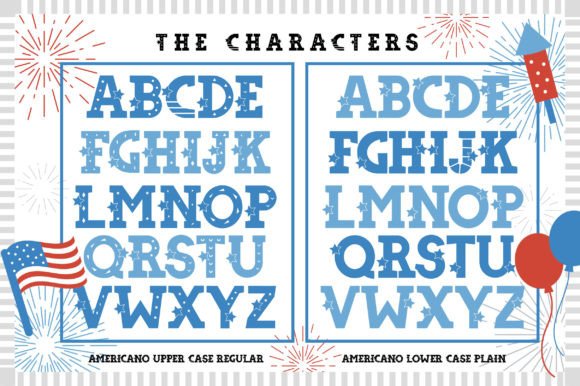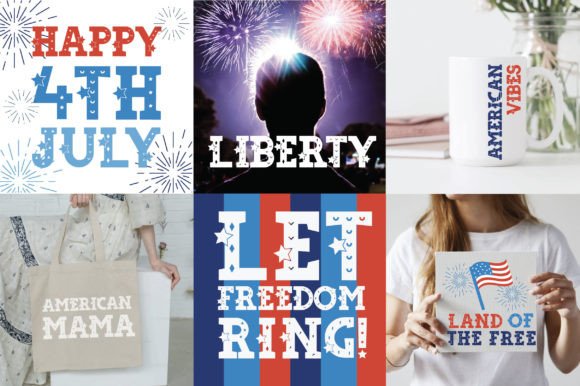
Introducing Americano Font: The Perfect 4th of July Decorative Theme Font
Are you looking for a unique and festive font to make your 4th of July projects stand out? Look no further than Americano Font, a decorative theme font designed specifically for Independence Day celebrations. With its bold and eye-catching design, Americano Font is sure to add a touch of patriotism and excitement to your designs.
What is Americano Font?
Americano Font is a special decorative font created to commemorate the 4th of July. It comes in two stylish variations: one with intricate decorations inside the letters and another with a clean, decoration-free design. This versatility allows you to choose the perfect style to match your project’s tone and theme.
Key Features of Americano Font
- Patriotic Design: The font features a bold and patriotic design, perfect for creating 4th of July-themed projects.
- Two Styles: Choose from two variations: one with decorative elements inside the letters and a clean version with no decorations.
- Ease of Use: Americano Font is easy to use and can be applied to various design projects, from digital graphics to handmade crafts.
- High-Quality Design: The font is designed with high-quality graphics, ensuring it looks great in any size or resolution.
How to Use Americano Font in Your Projects
Americano Font is incredibly versatile and can be used in a wide range of projects, including:
- Digital Graphics: Use Americano Font in your digital designs, such as social media posts, blog headers, and digital invitations.
- Handmade Crafts: Add a personal touch to your handmade crafts, like banners, signs, and DIY decorations.
- Printed Materials: Apply Americano Font to your printed materials, including flyers, brochures, and party invitations.
Tips for Designing with Americano Font
To get the most out of Americano Font, consider the following design tips:
- Pair with Complementary Fonts: Combine Americano Font with simpler fonts to create visual interest and hierarchy in your designs.
- Experiment with Colors: Try out different color schemes to match your project’s theme, such as red, white, and blue for a patriotic look.
- Play with Sizes: Use varying font sizes to emphasize certain words or phrases and create a dynamic design.
Why Choose Americano Font?
Americano Font stands out from other decorative fonts for several reasons:
- Uniquely Designed: The font’s patriotic theme and decorative elements make it a one-of-a-kind choice for 4th of July projects.
- Easy to Read: Despite its decorative nature, Americano Font remains clear and easy to read, making it perfect for headlines and titles.
- Versatile: The font’s two styles and high-quality design make it suitable for a wide range of applications.